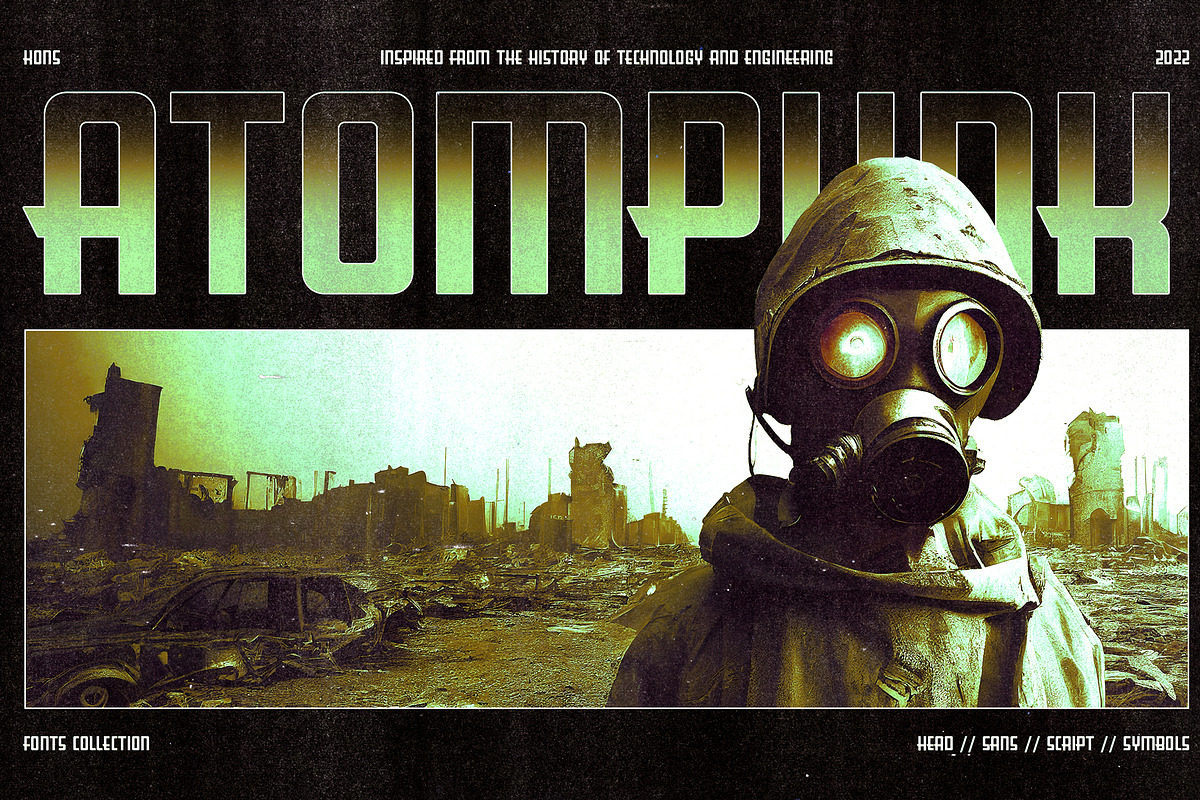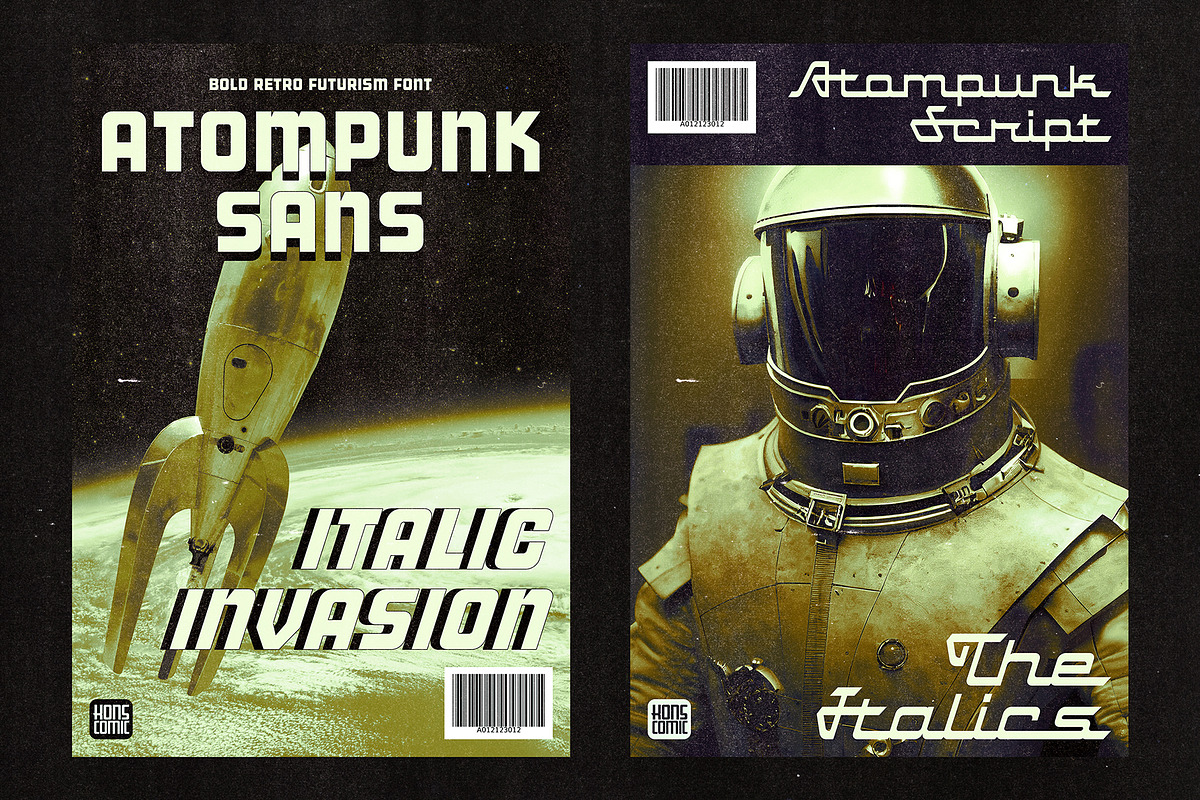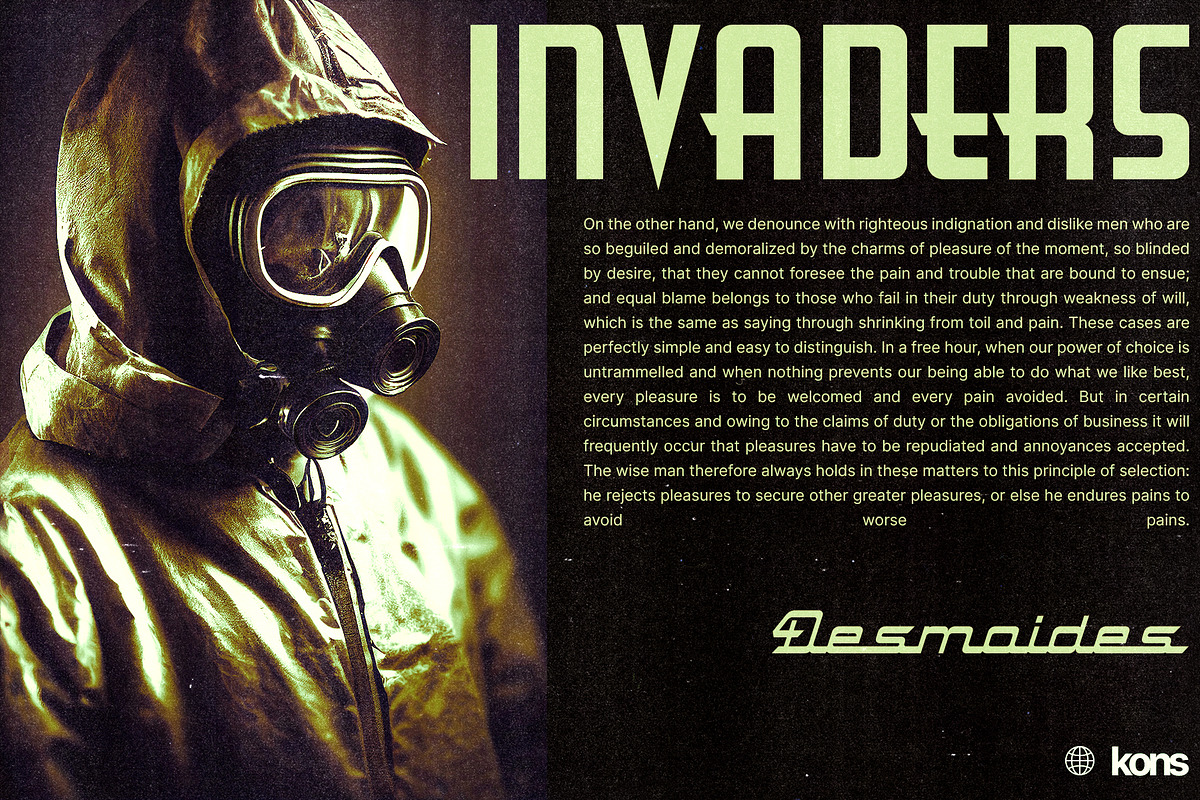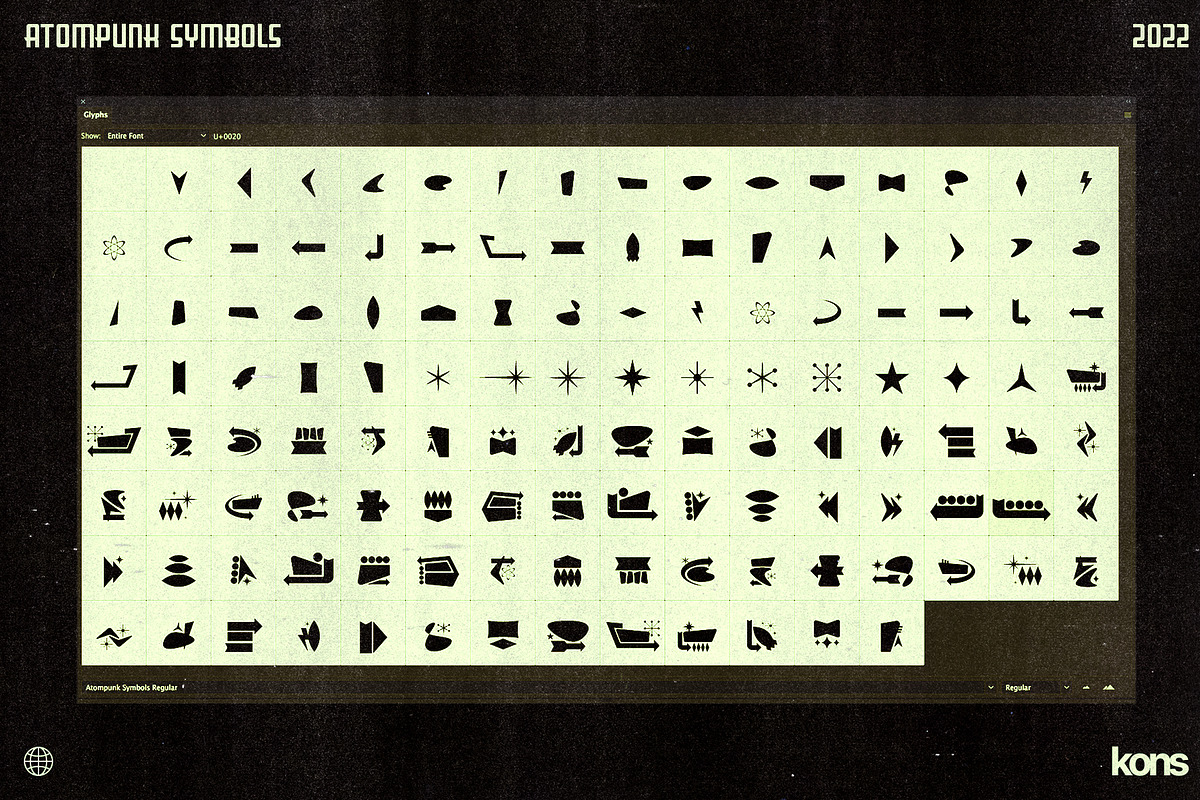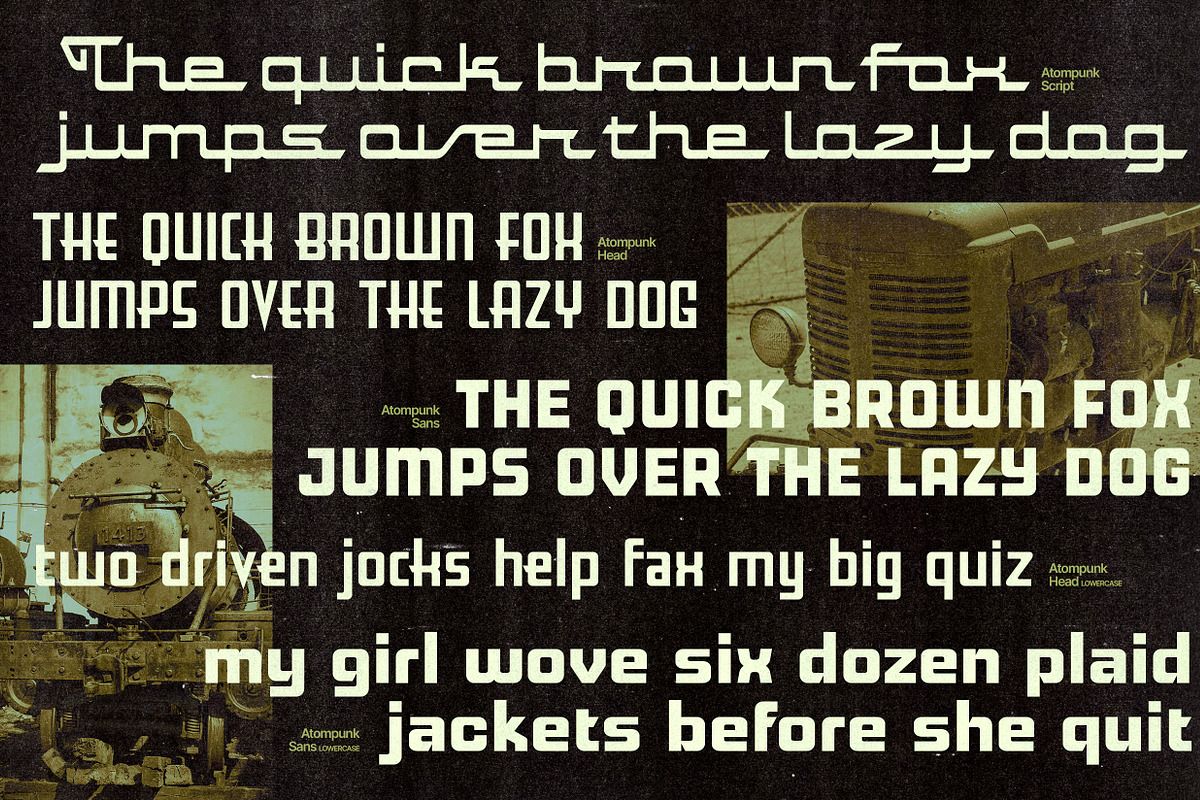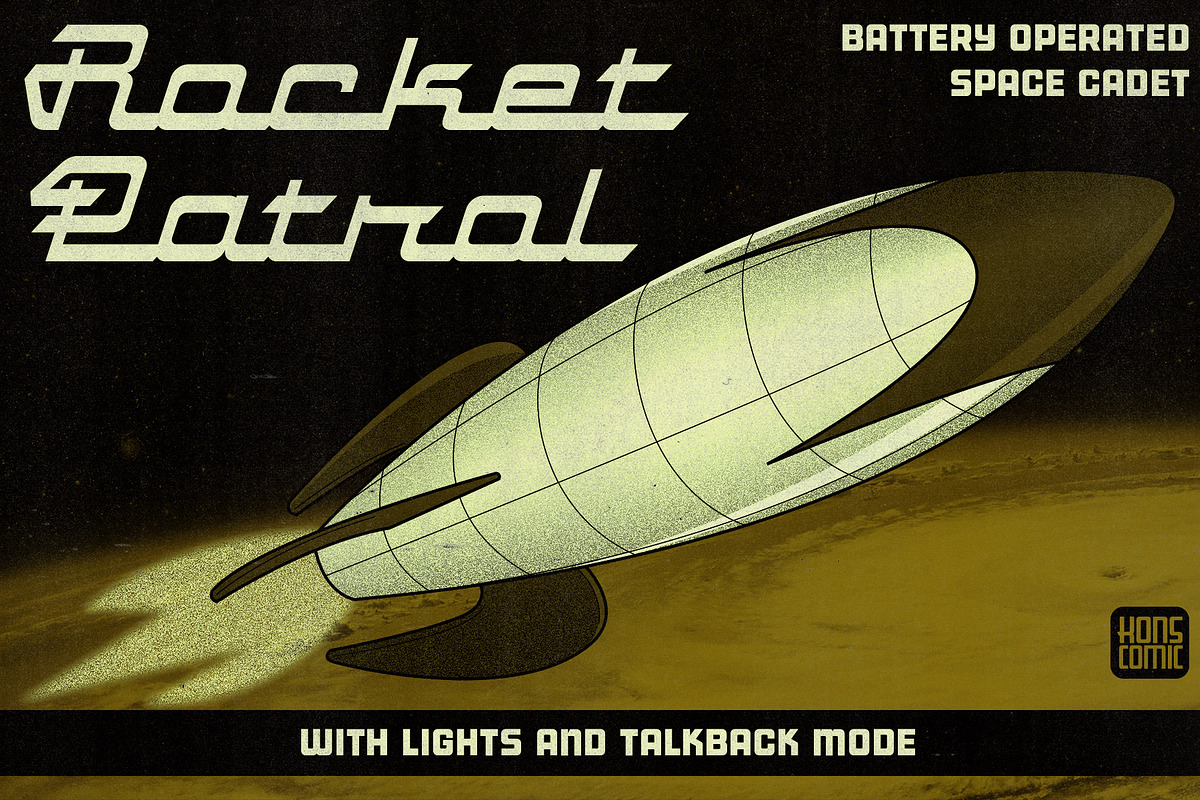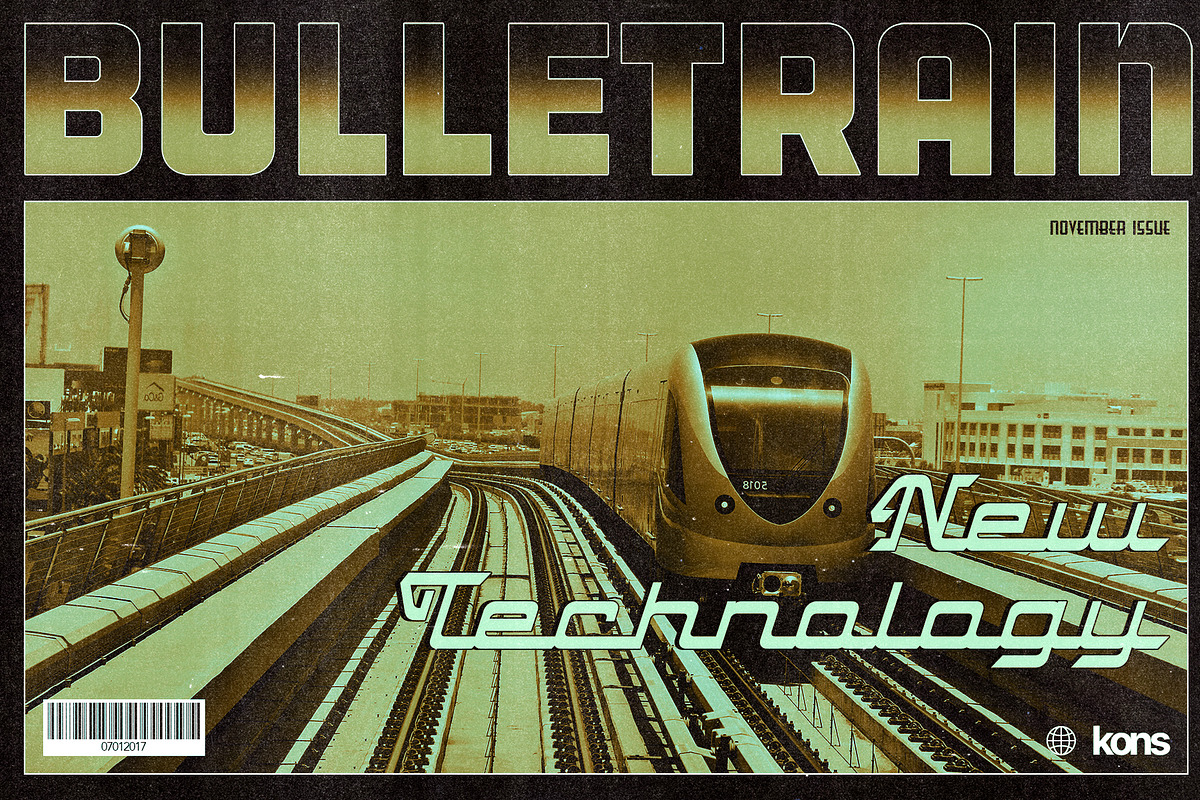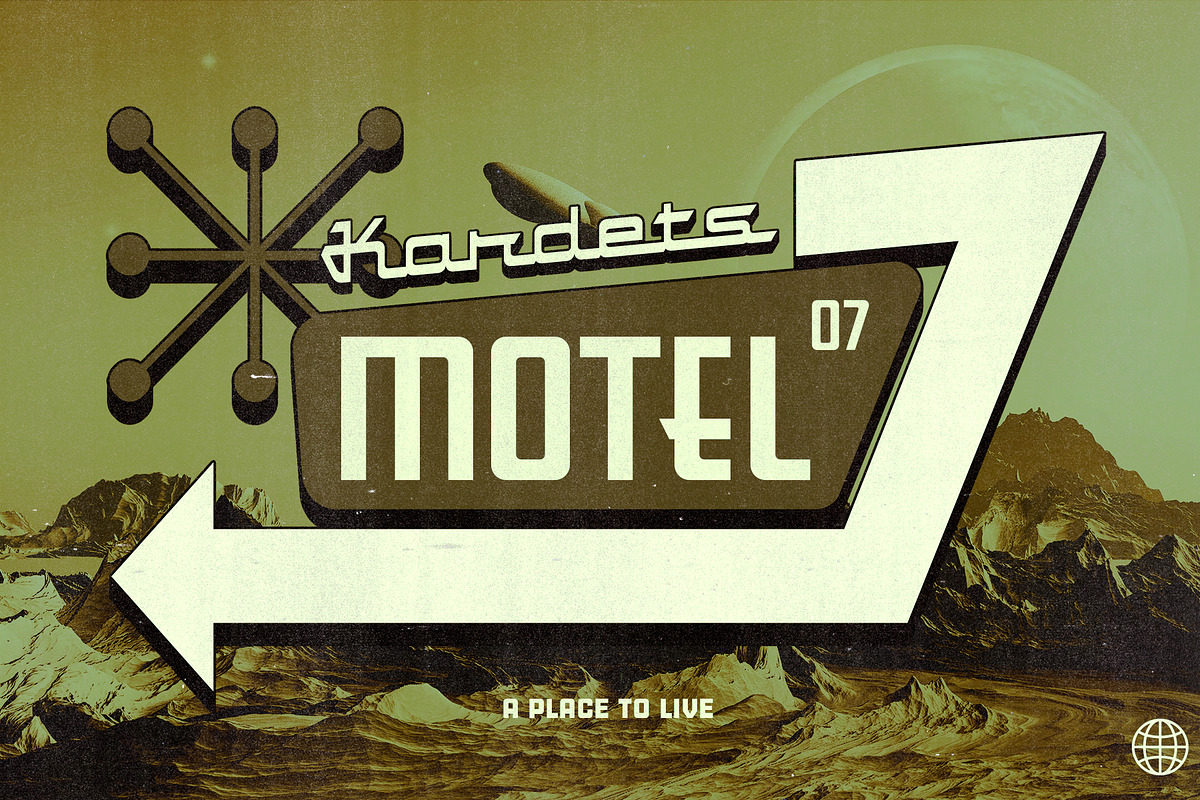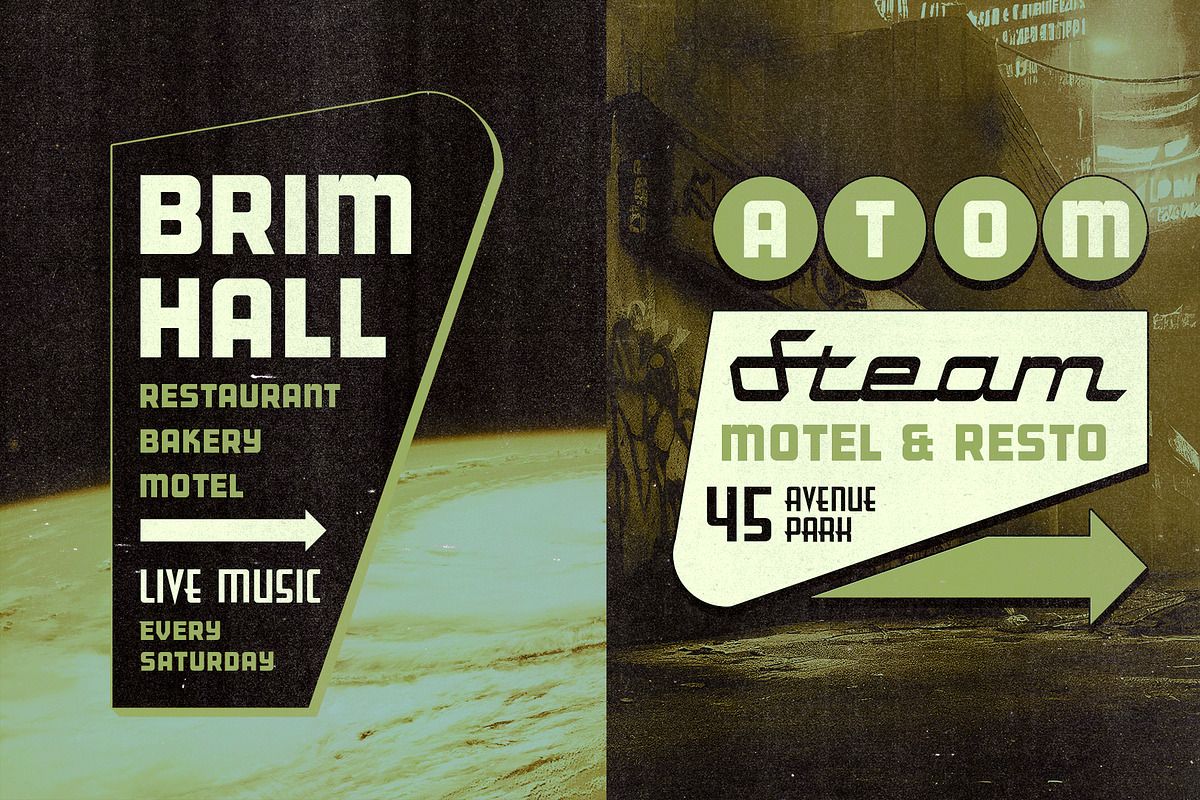
Atompunk - Retro Futurism Fonts
Inspired by the first wave of the industrial revolution back in the 60s. The glory of steam and steel machines in manufacturing technology.
Atompunk was referenced from the science-fiction visual of the retro-futurism mindset—the imagination of nuclear-based technology for every human need.
It contains Atompunk Head, Atompunk Sans, Atompunk Script, and Atompunk Symbols to pair up with each other. Every character is carefully tailored with tons of research to match up well with the era.
Perfectly fit for sci-fi movies, serials, technology-based branding, poster, logo, vintage illustration, packaging, snack, event, festival, album artwork, cover artwork, books, toys, games, arcades, cards, automotive, and many more.